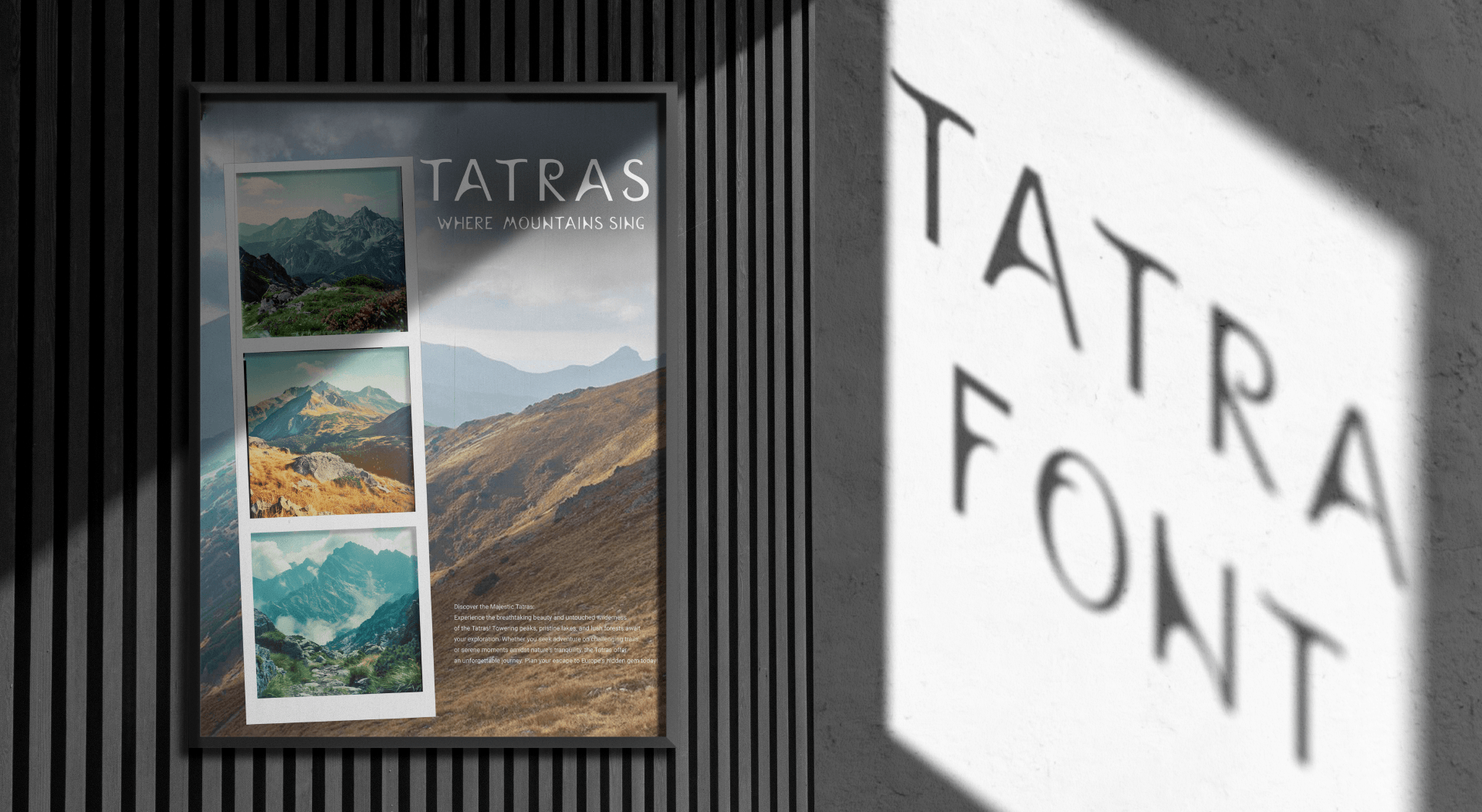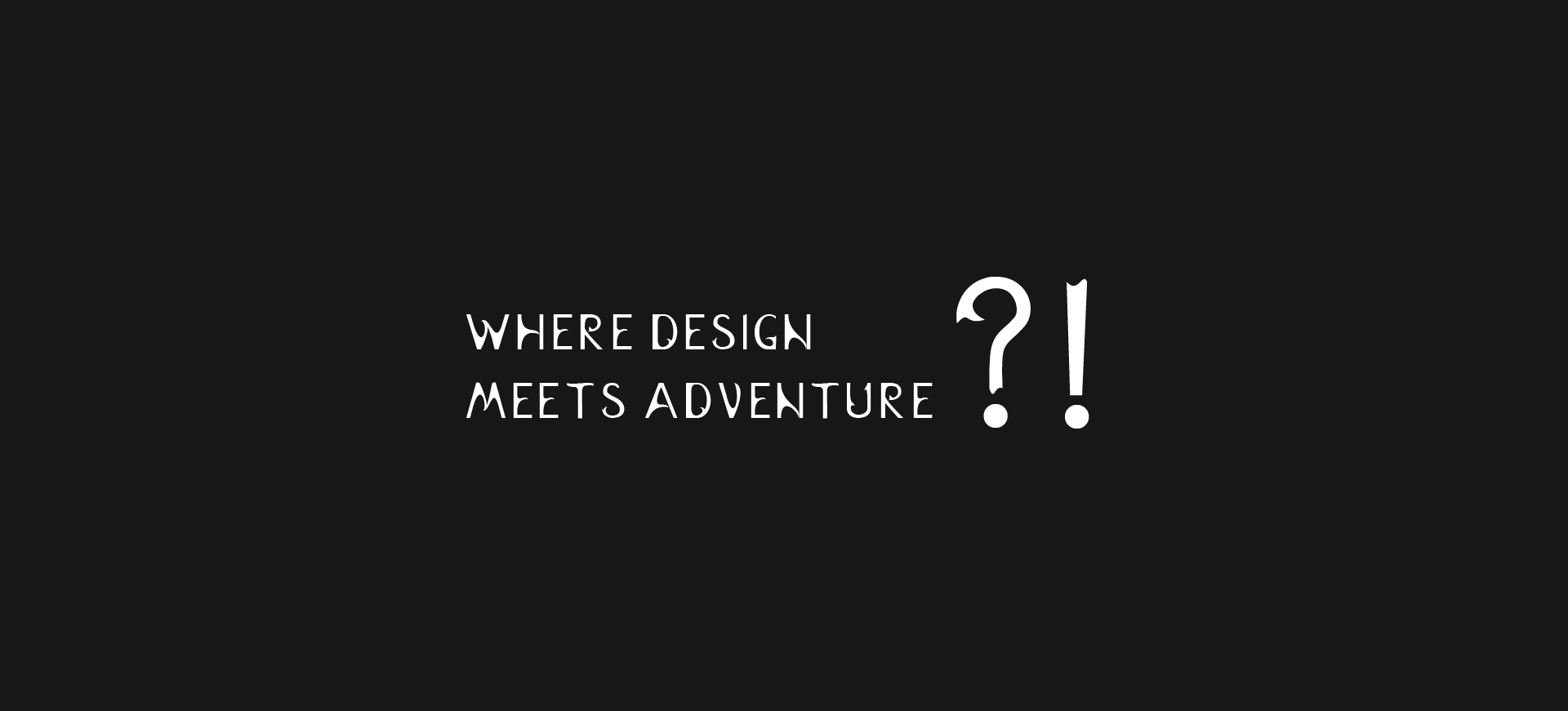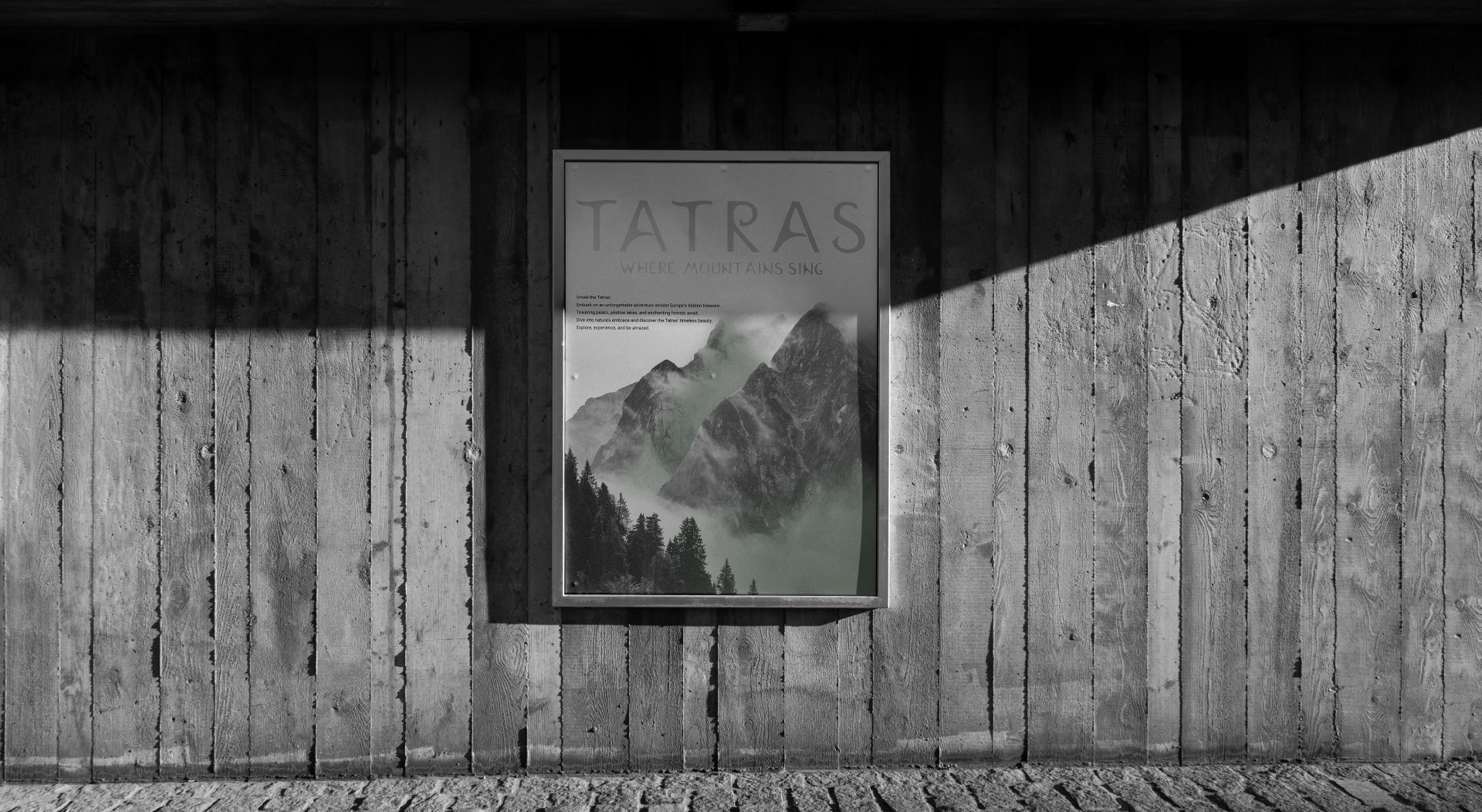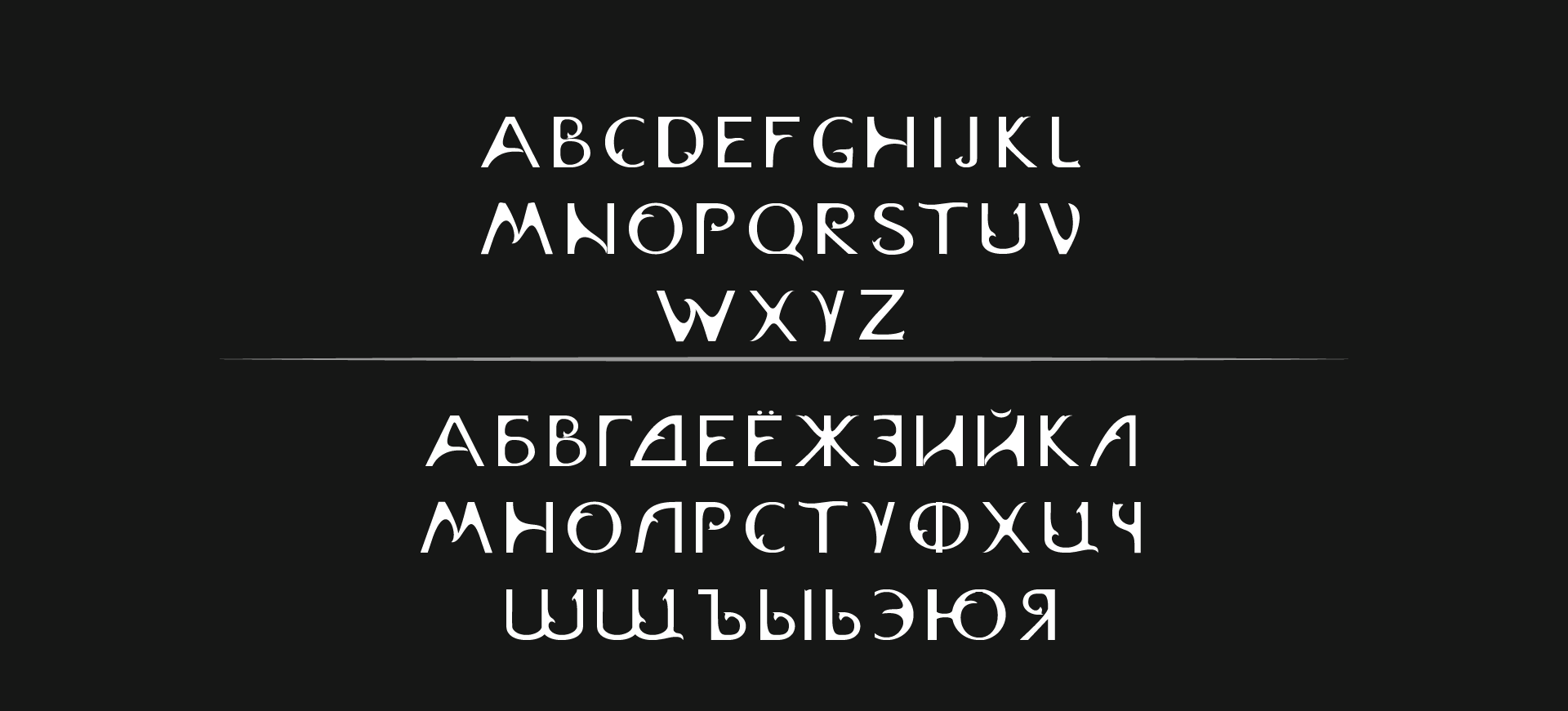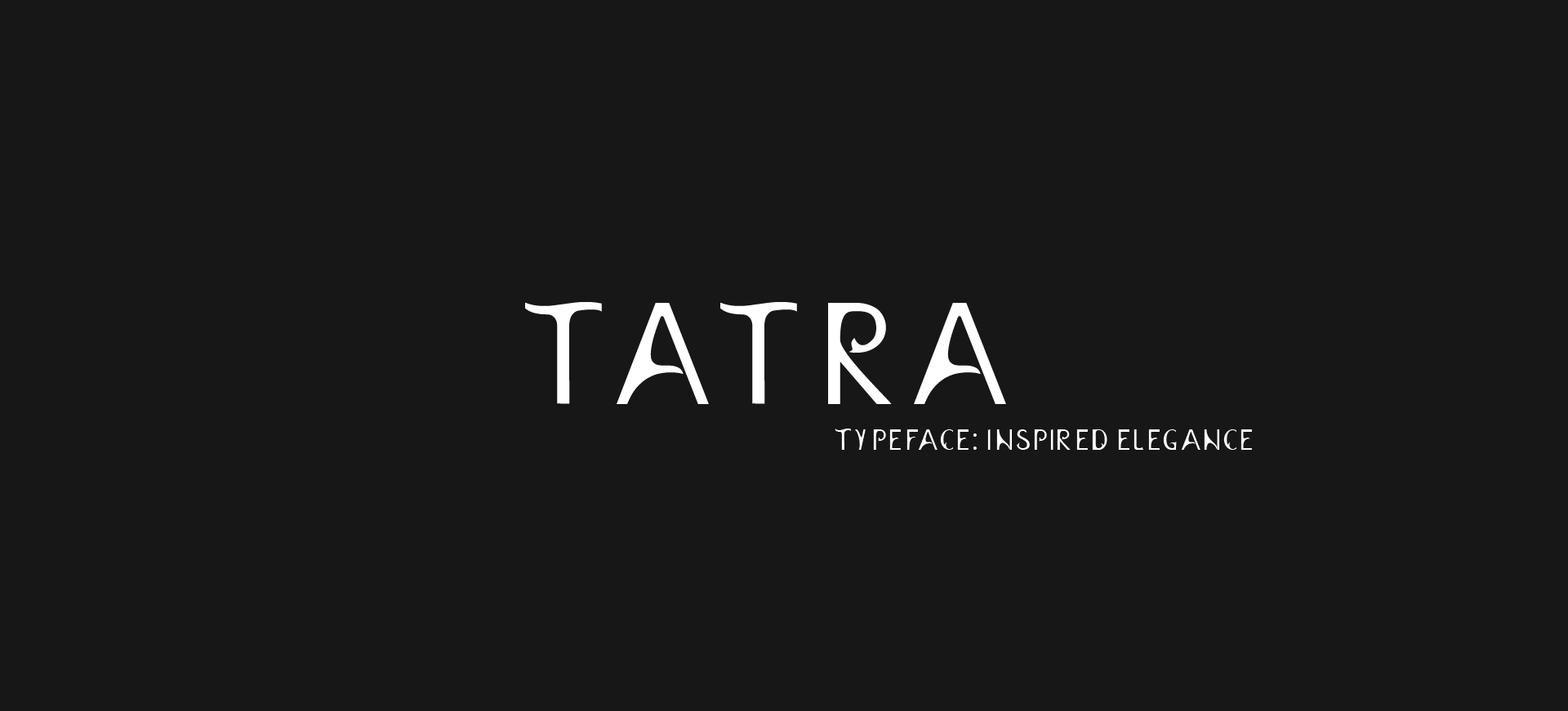
Tatra font
Embarking on my maiden voyage in font creation with Fontlab, I present my inaugural design. While imperfect, it marks the beginning of a journey inspired by Slovakia's pristine landscapes and the majestic Tatra Mountains. Here's to embracing imperfection as the first step towards mastery.